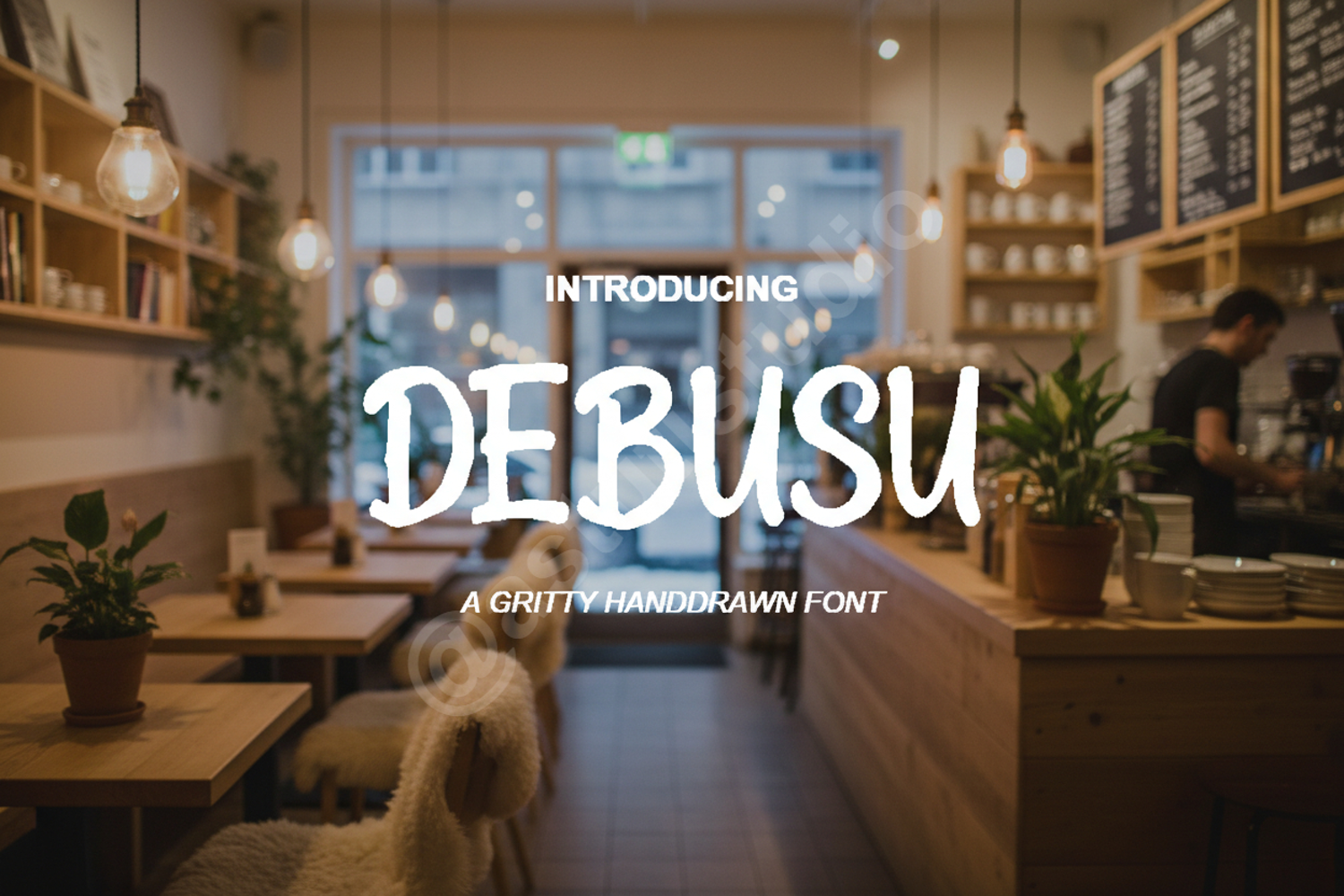
Debusu - Sophisticated Modern Serif Typeface
Debusu
Debusu is a premium serif font meticulously crafted to bring a touch of sophistication and timeless elegance to your creative projects. With its clean lines and unique character shapes, this typeface strikes the perfect balance between classic tradition and modern flair, making it an essential addition to any designer's toolkit. Whether you are working on a high-end fashion project or a minimalist brand identity, Debusu provides the professional edge you need.
- Complete set of uppercase and lowercase letters
- Comprehensive numbers and punctuation
- Extensive multilingual support for global accessibility
- Branding and Identity: Create memorable logos and brand marks that exude luxury and authority.
- Wedding Stationery: Add a refined touch to invitations, save-the-dates, and ceremony programs.
- Editorial Design: Perfect for magazine headers, book covers, and high-impact typography.
- Luxury Packaging: Elevate your product presentation with clean, high-contrast text.
- Social Media Graphics: Design stunning quotes and promotional assets that capture attention instantly.